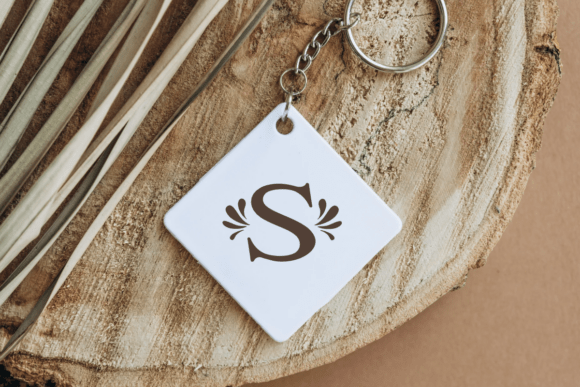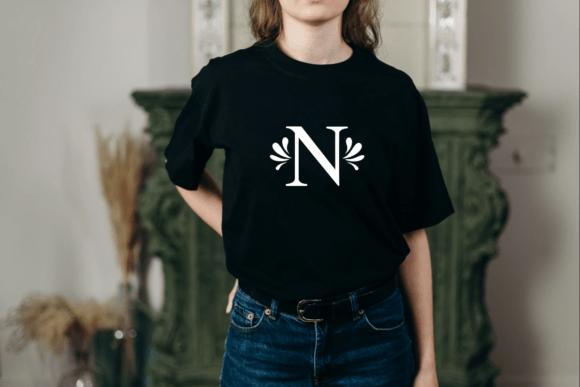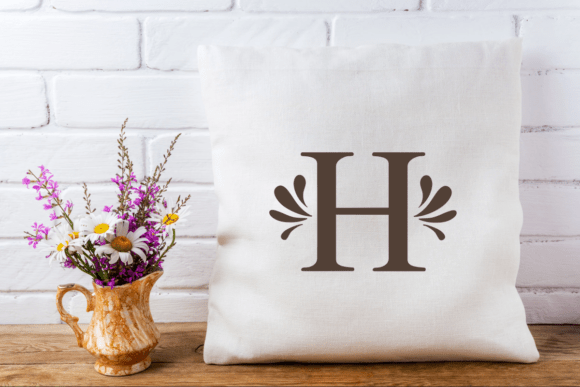
Introduction to Mystic Monogram Font
Mystic Monogram is an elegant decorative font that blends classical serif charm with artistic flourish.
Designed for monogramming, branding, wedding invitations, and upscale packaging, this font radiates refinement and grace Its ornamental flair and timeless structure make it a standout for luxury-themed projects and boutique aesthetics.